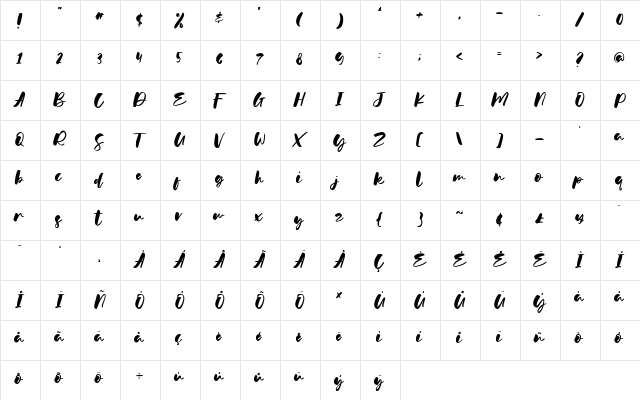
Glamour Bright Regular
| Foundry | alphArt Co. |
| Designer | Agung Rohmat |
Design Context for Glamour Bright Typeface
Glamour Bright is a composed and adaptable typeface that performs quietly and consistently across a wide range of design contexts.